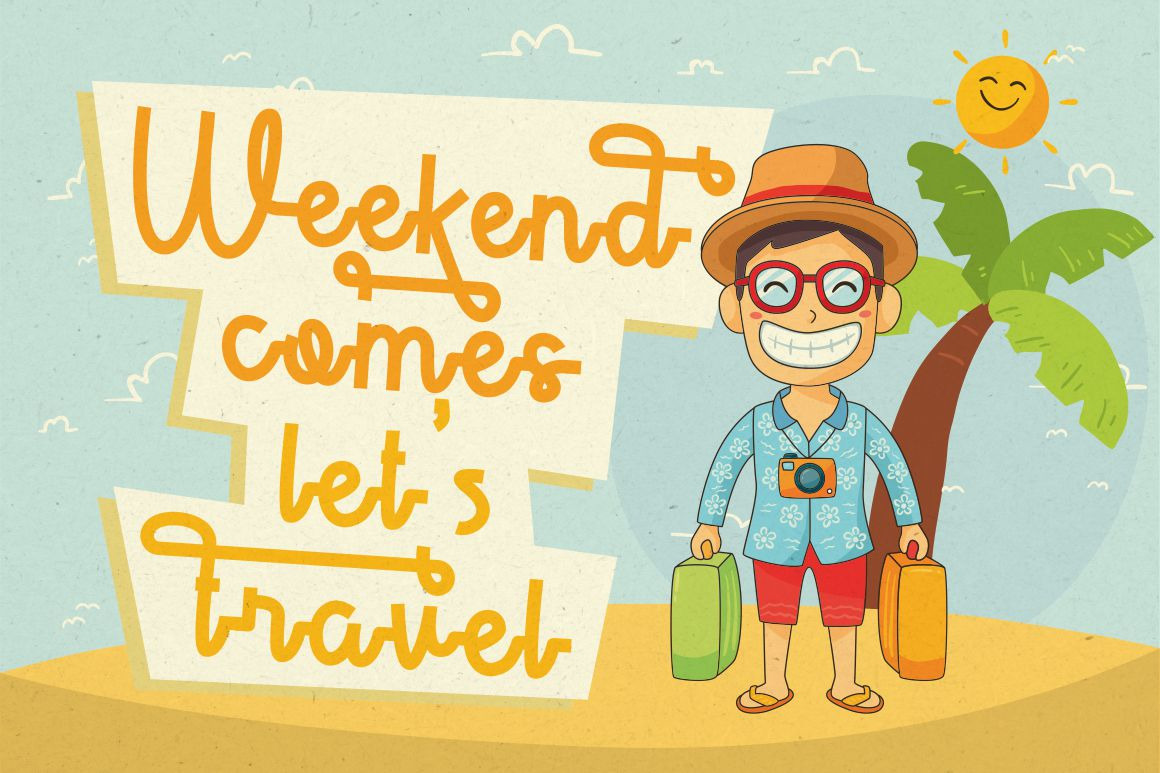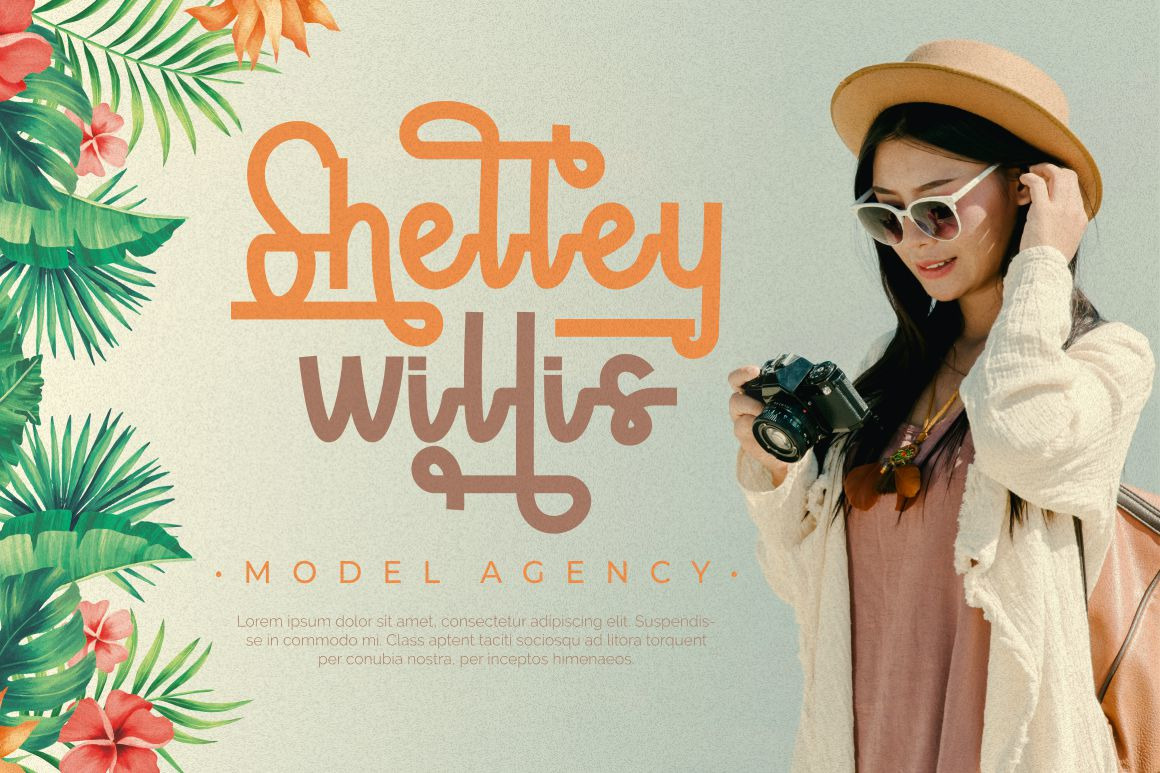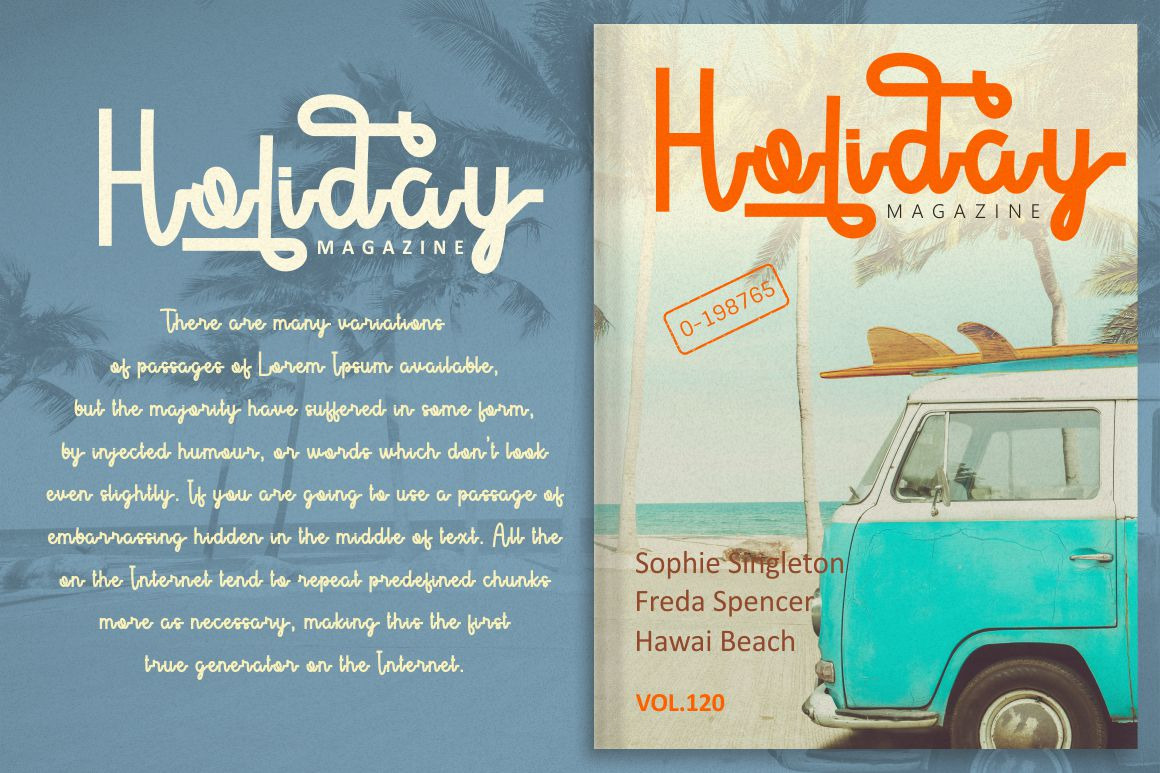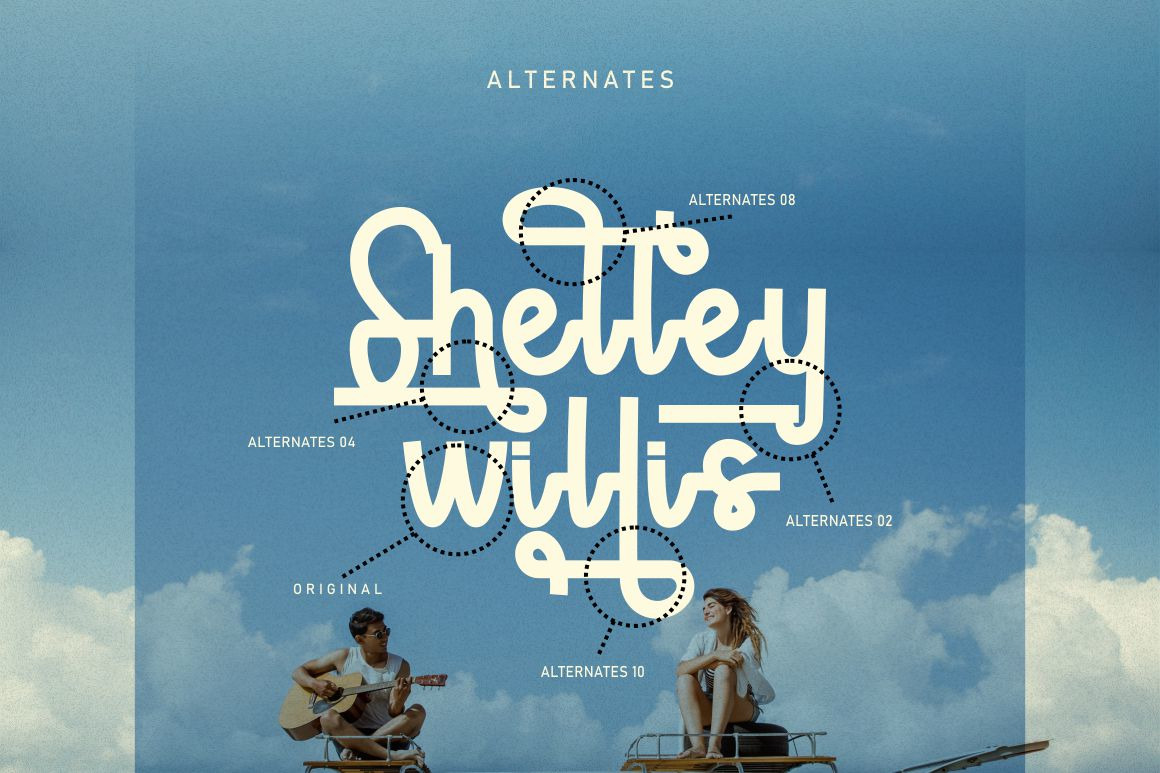
Summer Roadtrip - Retro Script Font
Summer Roadtrip - Retro Script Font. In this font I try to combine vintage with luxury/aesthetics. So that this font can be used in various projects with retro/vintage and luxury themes. Such as logos, branding, posters, packaging, book covers, clothes/apparel, quotes, titles and others. This font come with clean and rough font version.
Come with Opentype feature with a lot of alternates, its help you to make great lettering. This font is also support multi language.